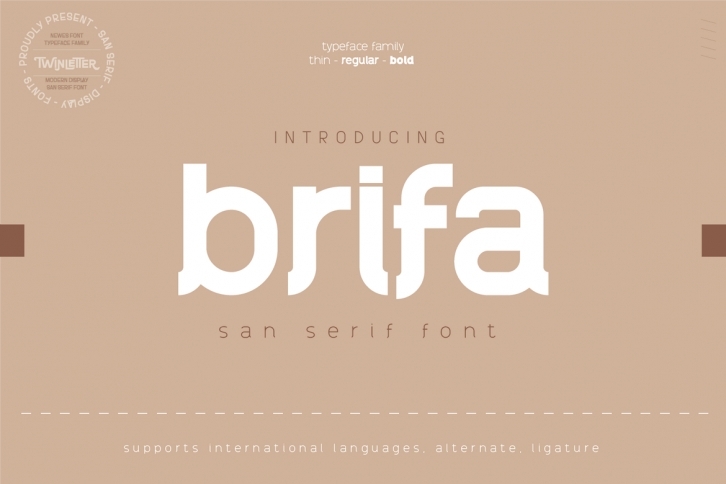
Brifa is a cool, trendy and bold display font. This font is ideal for writing web designs, business cards, or pretty much anything else that requires a minimal and adaptable touch.